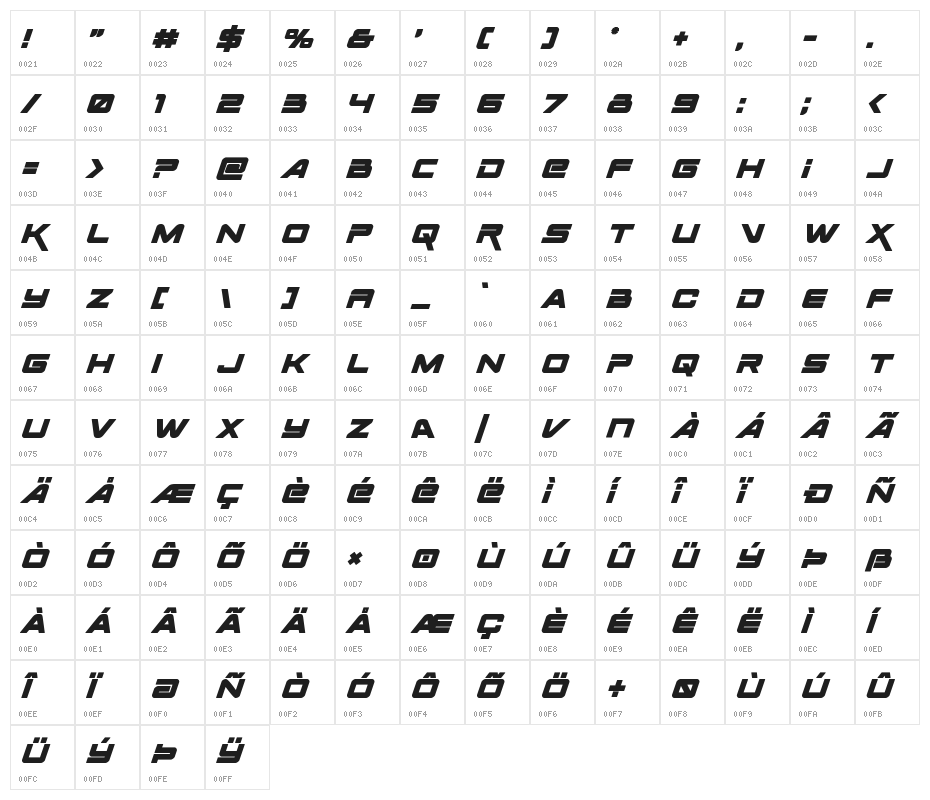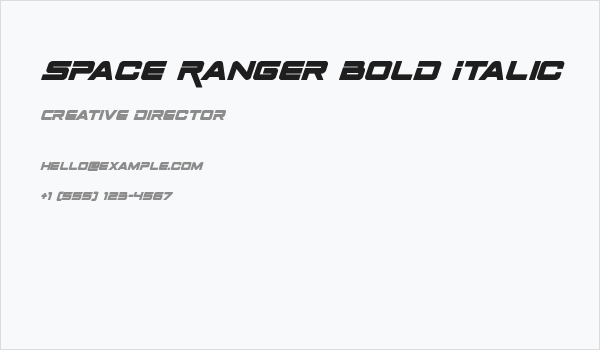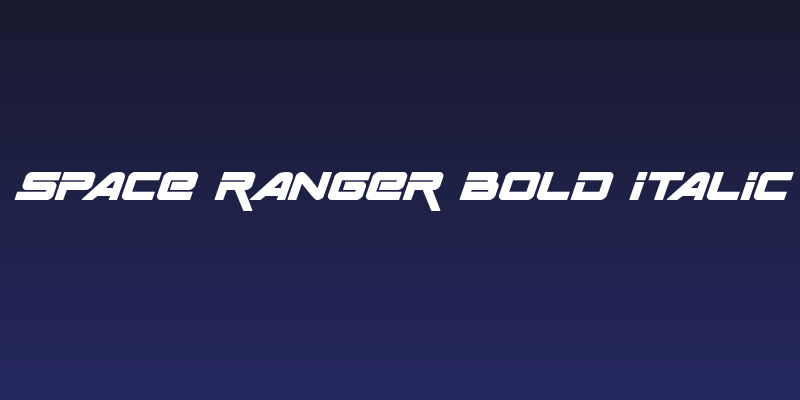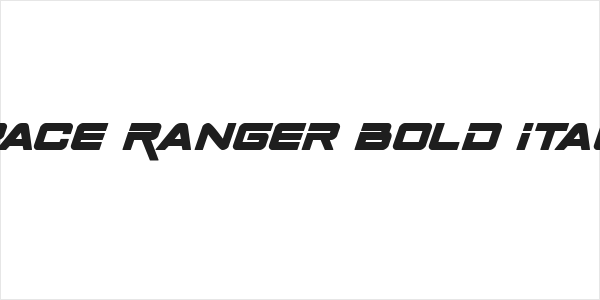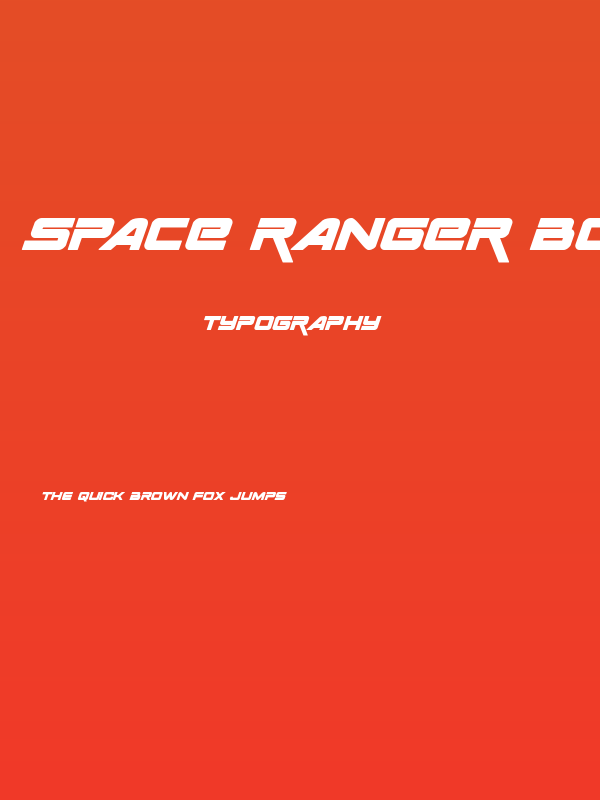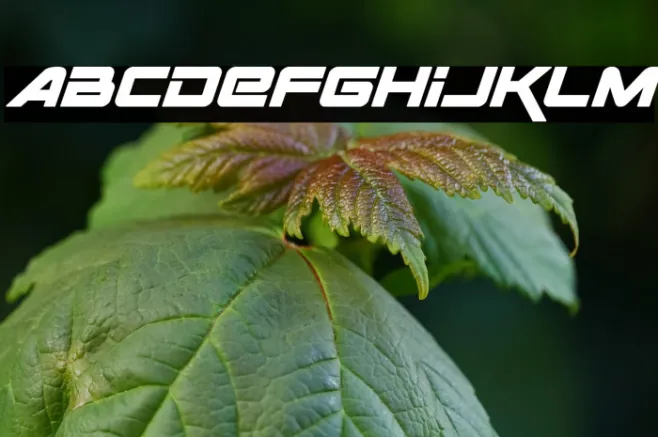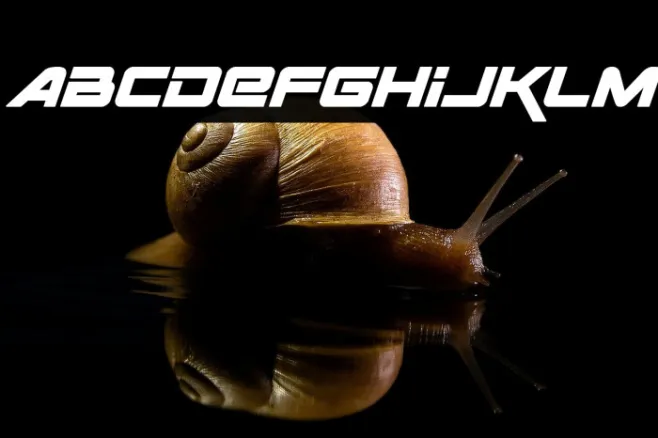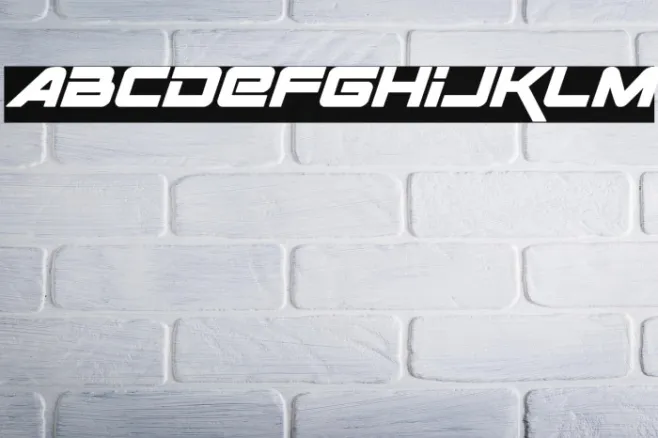
Space Ranger Bold Italic Font
Space Ranger Bold Italic Description
This font features a bold and italicized style with a futuristic and dynamic appearance. The characters are designed with sharp angles and a forward-leaning posture, giving a sense of motion and speed. The uppercase letters are prominent and assertive, while the lowercase letters maintain a consistent style. Numbers and special characters follow the same bold and italicized theme, ensuring uniformity across all glyphs. The font's design is sleek and modern, making it suitable for projects that require a strong and impactful visual presence.
| Proposed Projects | Ideal for sci-fi themed projects, video game titles, movie posters, and branding that requires a modern and bold aesthetic. |